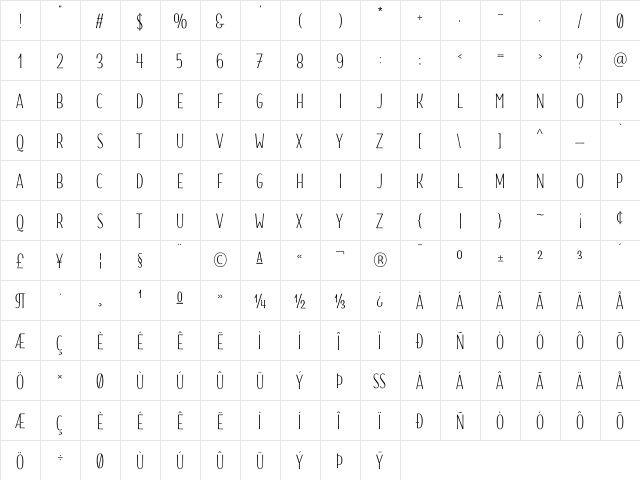
Storyteller Sans Regular
| Foundry | Elena Genova |
| Designer | Elena Genova |
Design Context for Storyteller Sans Typeface
Storyteller Sans is a composed and adaptable typeface that performs quietly and consistently across a wide range of design contexts.